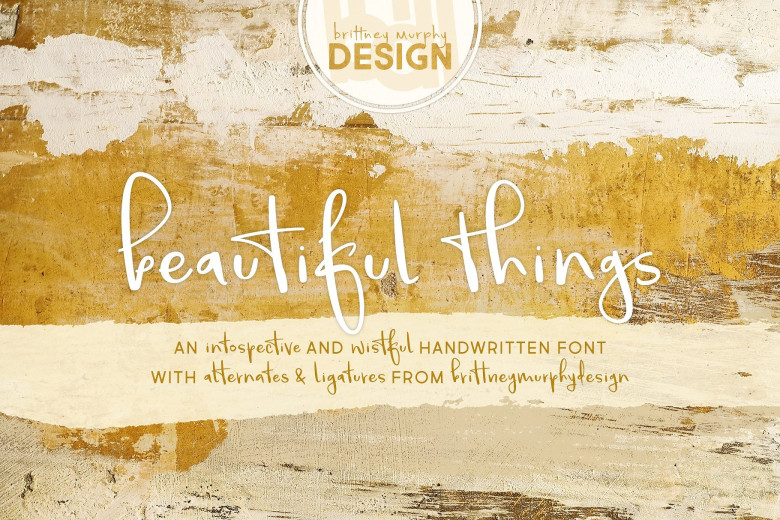
Beautiful Things Handwritten Font
This is a playful script handwritten font with imperfectly perfect edges. The font is Beautiful Things Font. Beautiful Things is a wistful non-connecting script with sweeping ascenders and descenders and natural, flowing lines for an informal, yet elegant look. Contains over 700 glyphs, including foreign Latin characters, alternates and ligatures.